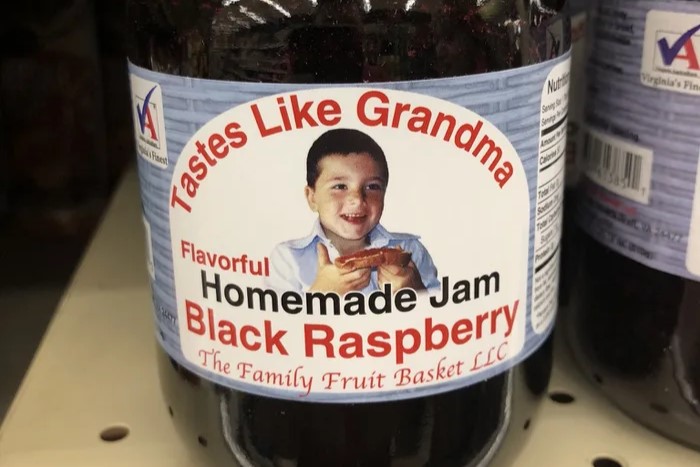
There is no doubt that typography is important in any design, especially in communicating messages. However, any error in typography can harm your design’s effectiveness. Therefore, we’ll explore the 10 common typography mistakes and show you how to avoid them for better results.
Key Takeaways
- Font selection is crucial in typography, so choose legible, well-pairing fonts and limit your choices to no more than three.
- Establishing a clear hierarchy can improve the reading experience and highlight important content.
- Adjust typography contrast by modifying size, weight, structure, texture, form, color, and direction.
Top 10 Common Typography Mistakes
These typography errors seem trivial but are often overlooked. Therefore, you need to pay attention and avoid making these mistakes.
1. Using Too Many Fonts
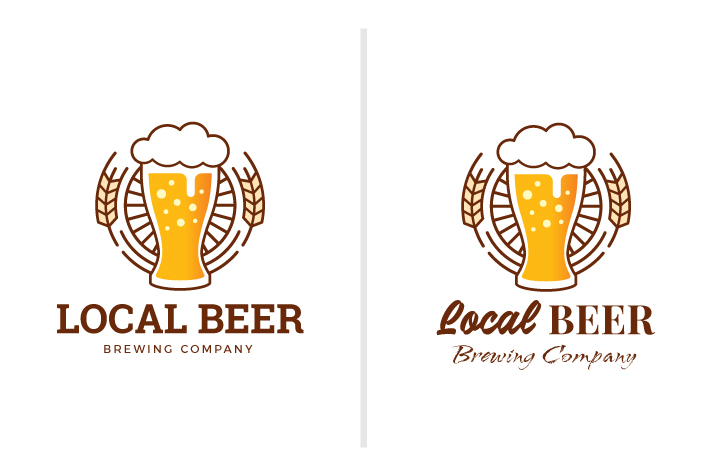
One of the top typography mistakes is using too many fonts in a single design. Mixing too many typefaces will ruin your design, making it look cluttered and unprofessional.
You should use a maximum of two or three complementary fonts. Choose one font for headers and a different one for body text. You can incorporate additional fonts for special elements, like call-to-action buttons.
2. Focusing Style over Legibility
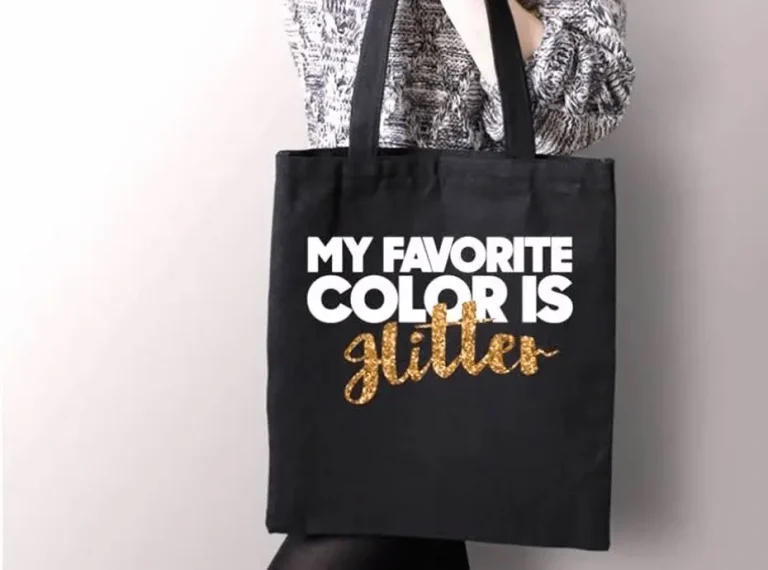
It’s fine to enhance the visual appeal of your design, but it shouldn’t compromise legibility. An overly flashy or decorated design can distract the audience from the message you intend to convey.
When selecting fonts for delivering messages or long text, always prioritize legibility. Serif and sans-serif fonts are ideal choices due to their readability. Other font styles, such as script or display fonts, can be used sparingly for attention-grabbing elements, commonly in headings.
3. Ignoring Hierarchy
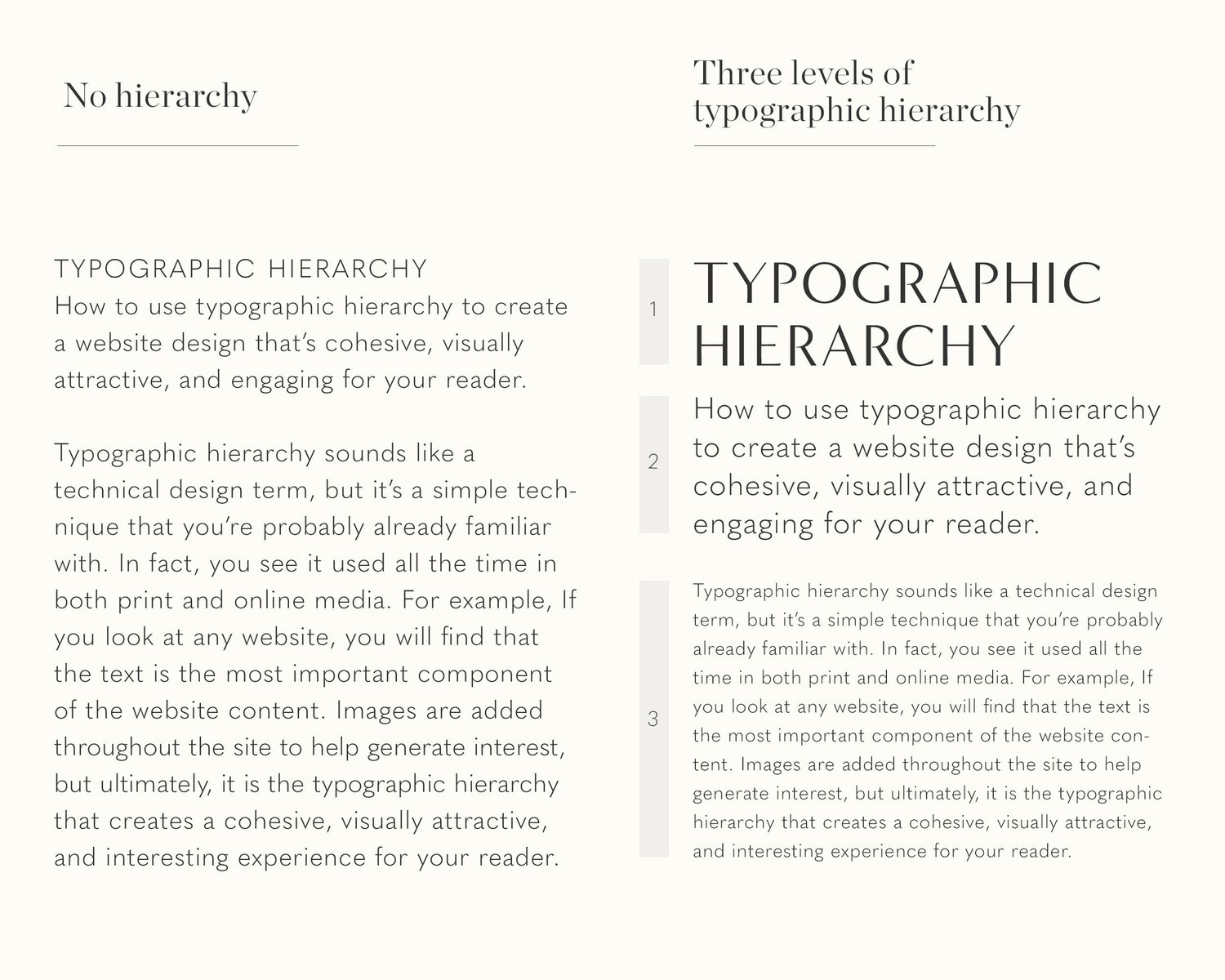
Among the 10 common typography mistakes, failing to establish a clear hierarchy can make it harder for readers to navigate your content. Without proper emphasis on headings, subheadings, and body text, your message may become difficult to follow and lose its impact.
Experiment with size, weight, and style to create a clear hierarchy. Headings should be larger and bolder, while body text should be smaller but still readable. Arrange them based on their importance, from most to least significant.
4. Ineffective Use of Contrast
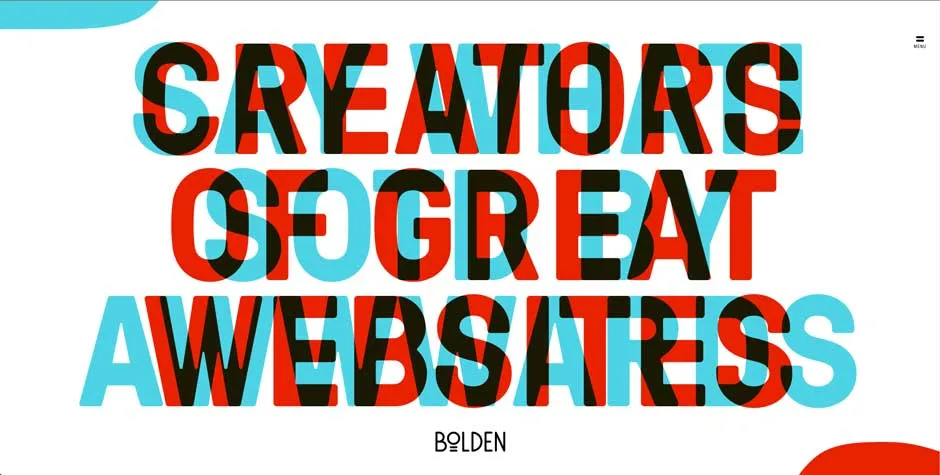
Regarding the previous point, contrast is essential to ensure readability and highlight certain elements to attract user attention. Without it, the reading experience becomes difficult. Moreover, readers can’t grasp the intended messages efficiently.
To address this issue, it’s important to master typography contrast. One helpful approach is to refer to Carl Dair’s seven principles of contrast, which include size, weight, structure, texture, form, color, and direction.
5. Overlooking Kerning and Tracking
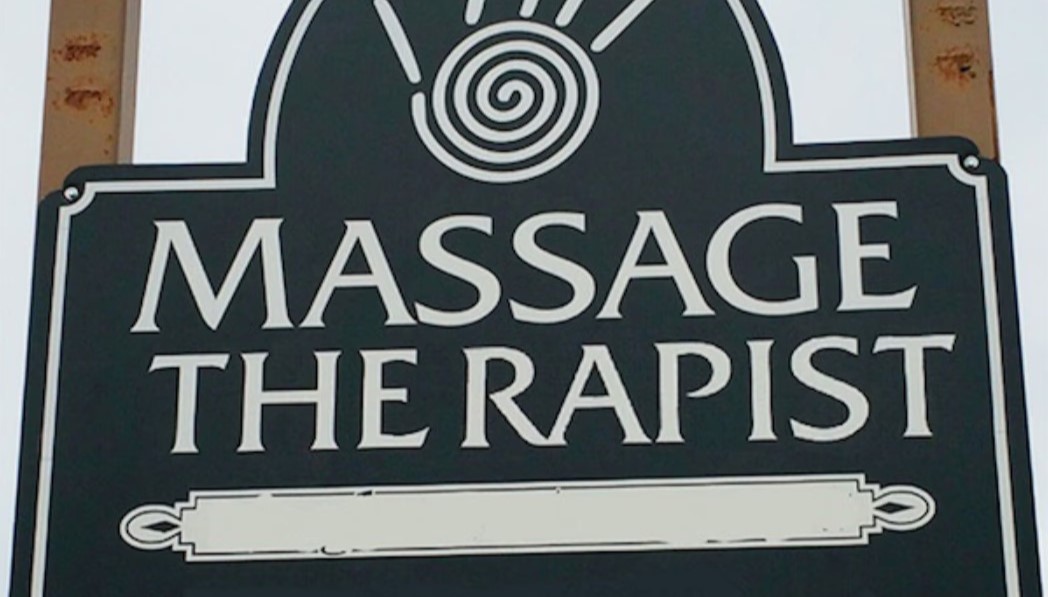
Kerning and tracking are the spacing techniques for text. They are important to ensure a seamless reading experience. Moreover, poor kerning or tracking often causes funny typography mistakes, where text is spaced awkwardly and unintentionally changes its meaning.
Always check the spacing between letters and words manually. For optimal readability and spacing, it’s important to understand the relationships between specific characters, like “A” and “V” or double “I.”
6. Not Optimizing Leading
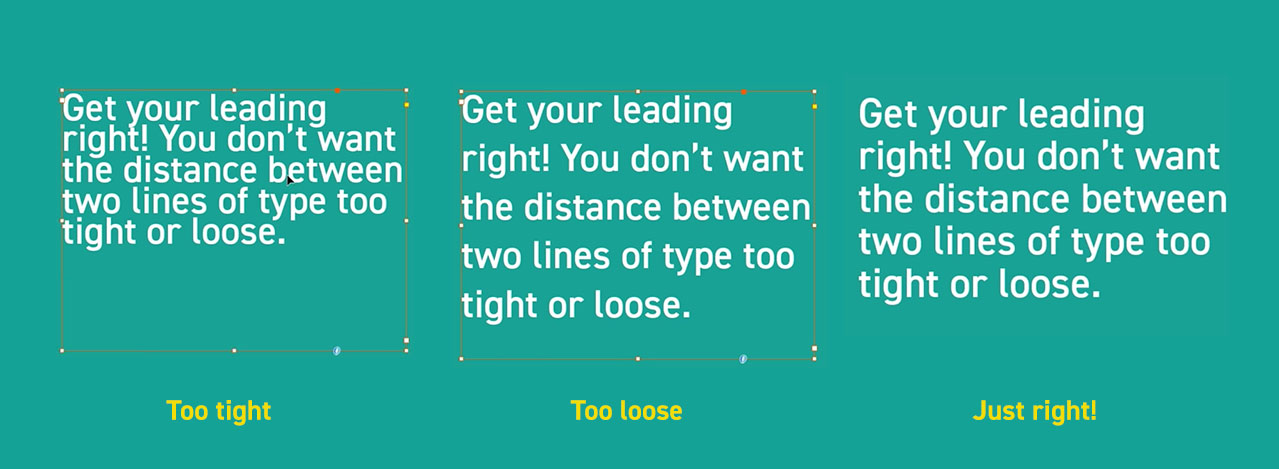
Leading, or line spacing, is another crucial spacing technique. It ensures that the lines within a paragraph aren’t too tight or too spaced out. If the lines are too close together, the text becomes difficult to read, while excessive spacing can disrupt the flow and readability.
Adjust line spacing based on the font size. For optimal readability, set the leading to 1.2 to 1.5 times the font size.
7. Ineffective Line Length
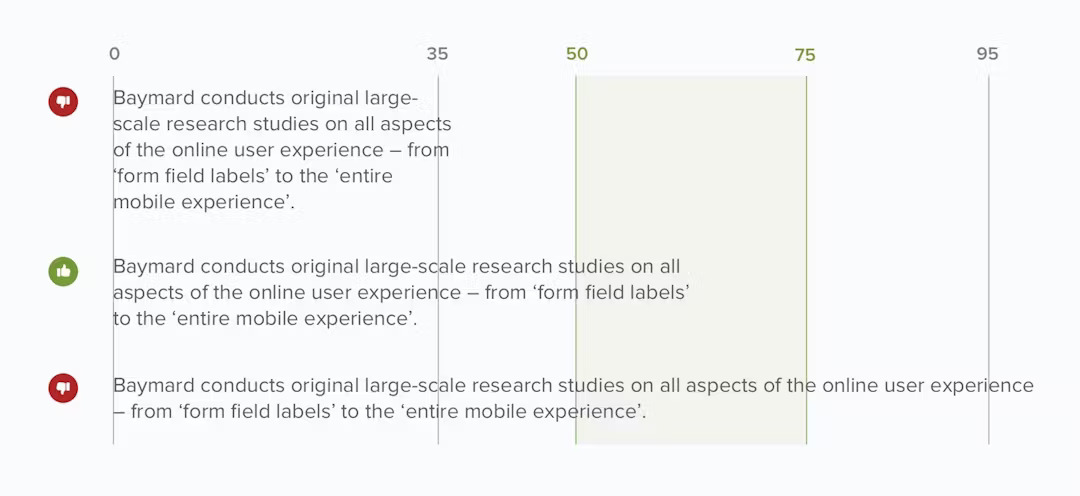
This is one of the 10 common typography mistakes that is often overlooked. Improper line length can greatly impact readability, making it difficult for readers to follow and understand the content.
To avoid this issue, make sure to set an appropriate line length. The ideal line length is between 50 and 75 characters per line.
8. Inconsistent Alignment
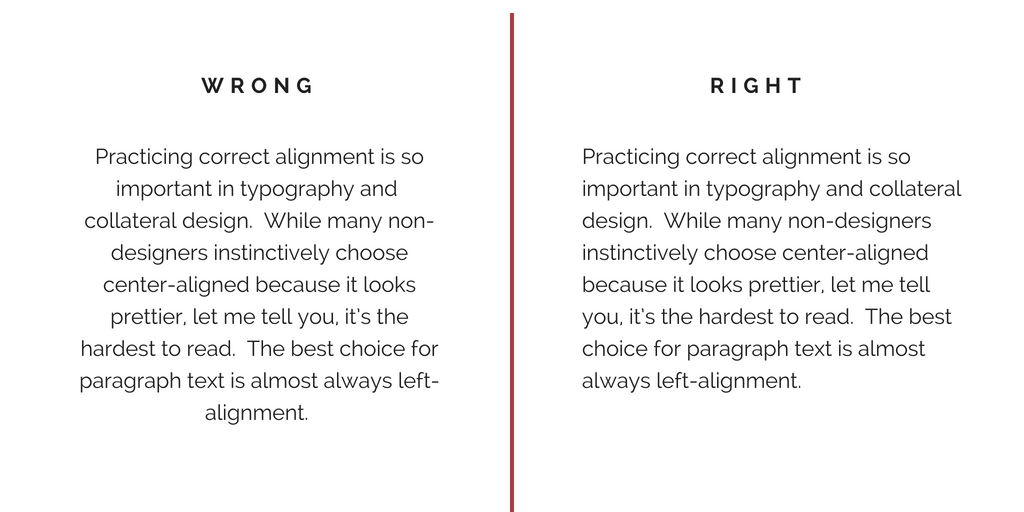
Alignment can help our brain to scan content effectively, enhancing readability. However, you should use alignment consistently. If not, your design will look messy and unorganized.
Stick to a consistent alignment throughout your design. Left alignment is the most readable for long text, while center alignment works best for short headlines.
9. Neglecting Orphans, Widows, and Ragged Paragraph
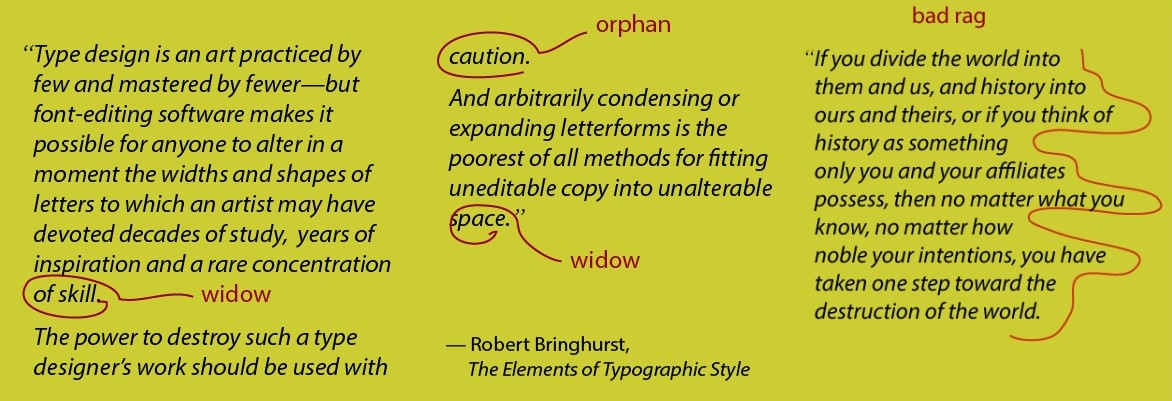
One of the most overlooked 10 common typography mistakes is failing to manage orphans, widows, and rags.